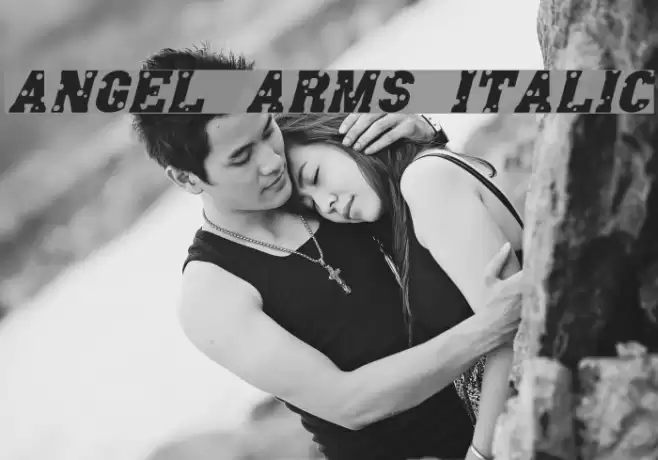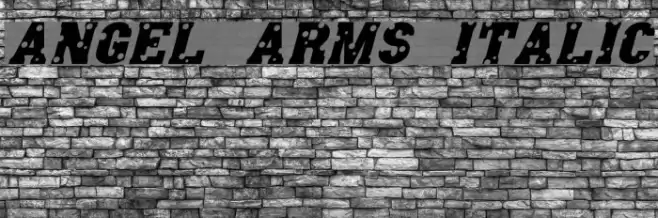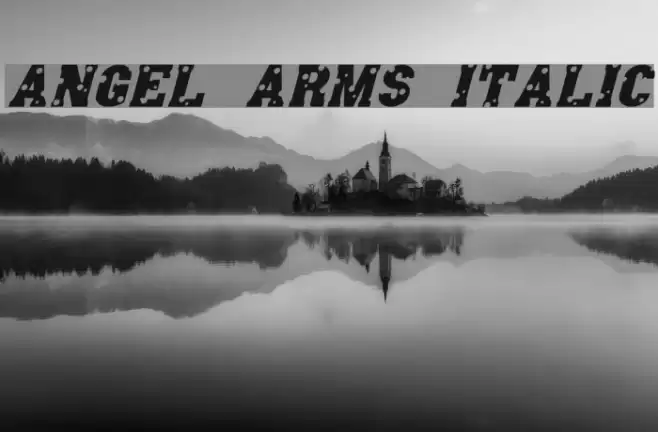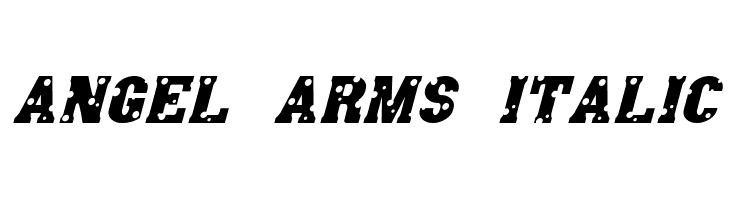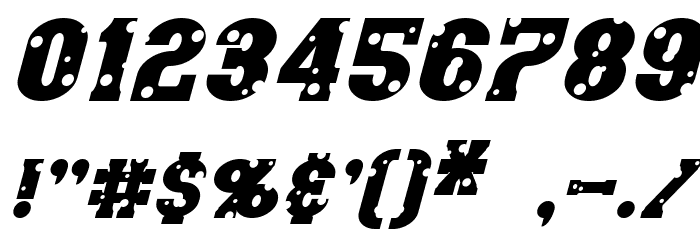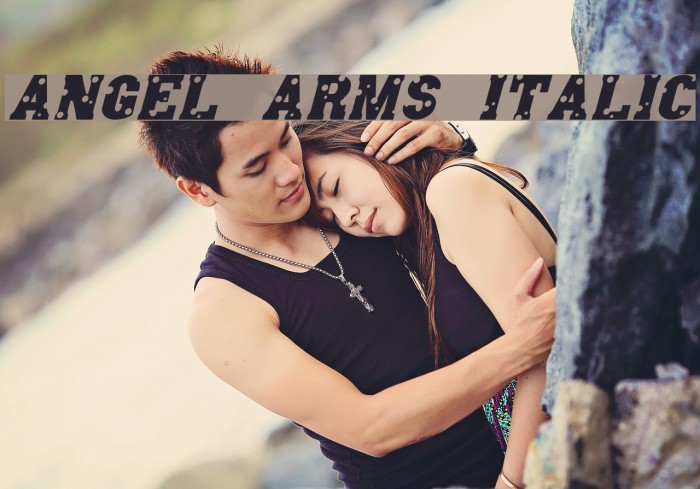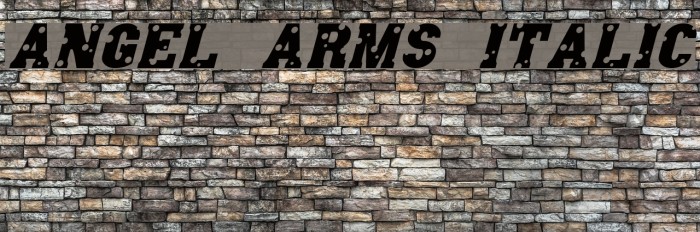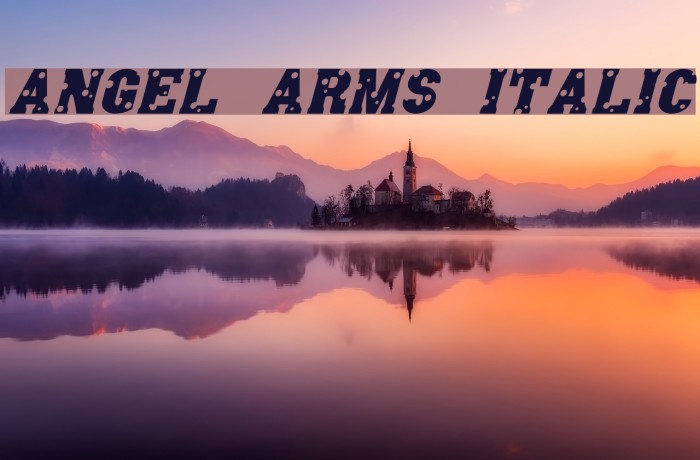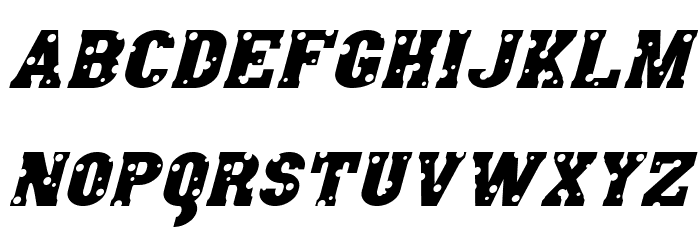
Angel Arms Italic Font
Angel Arms Italic Description
This font features a bold and decorative style with unique cut-out patterns within each character, giving it a playful and eye-catching appearance. The uppercase and lowercase letters maintain a consistent bold weight, while the numbers and special characters share the same distinctive design. The font's overall aesthetic is both modern and whimsical, making it suitable for creative and informal applications. The characters are well-spaced, ensuring readability despite the intricate design elements. This font stands out with its high contrast between the thick strokes and the hollowed-out sections, adding to its visual appeal.
A bold, decorative font with unique cut-out patterns and high contrast from Uncategorized fonts.
- Proposed Projects: Ideal for posters, event invitations, children's book covers, and playful branding projects.
- Overall Style: Modern, Decorative